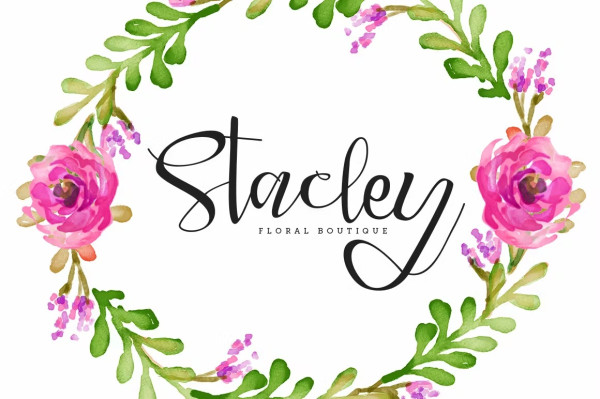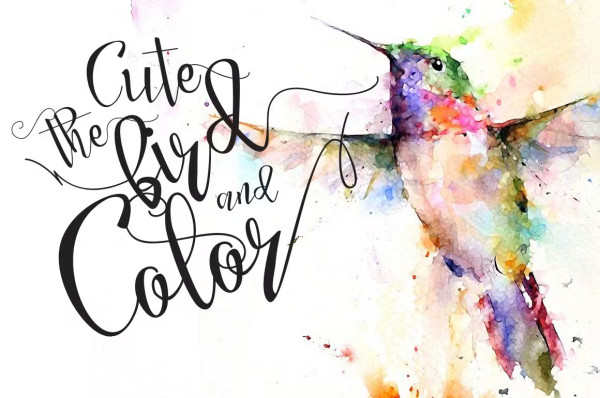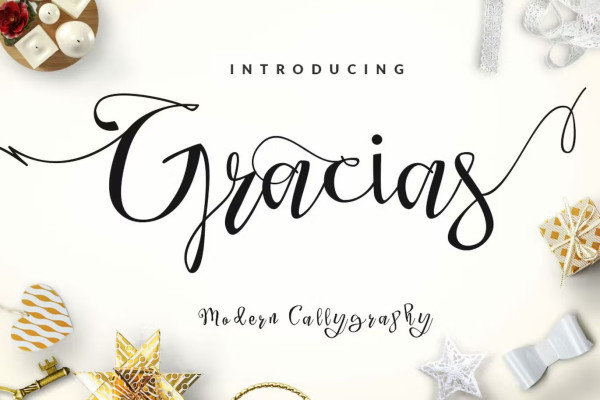
Gracias Typeface
Gracias Typeface is elegant and another beautiful modern calligraphy font, which combines classic calligraphy style with modern style include in Gracias 384 Glyphs. The characteristics of these Fonts are: Discretionary ligatures Stylistic alternators Feel free to explore your imagination. Can be used for various purposes, such as greeting cards, editorial, branding, wedding invitation, quotes etc.